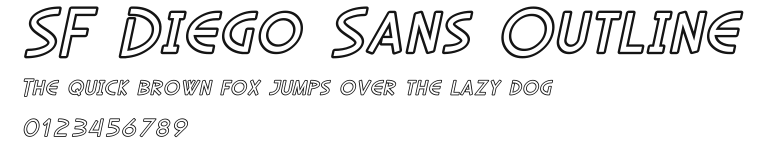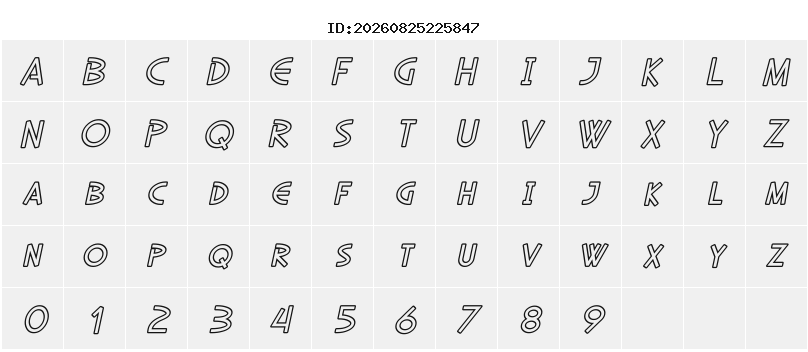
• Font Name: SF Diego Sans Outline
• Font Style: Oblique
• Full Font Name: SF Diego Sans Outline Oblique
• Designer: ShyFonts Type Foundry
SF Diego Sans Outline.ttf is a modern, elegant sans-serif font designed for ultimate readability and visual harmony. Perfect for branding, headlines, web design, and print materials.